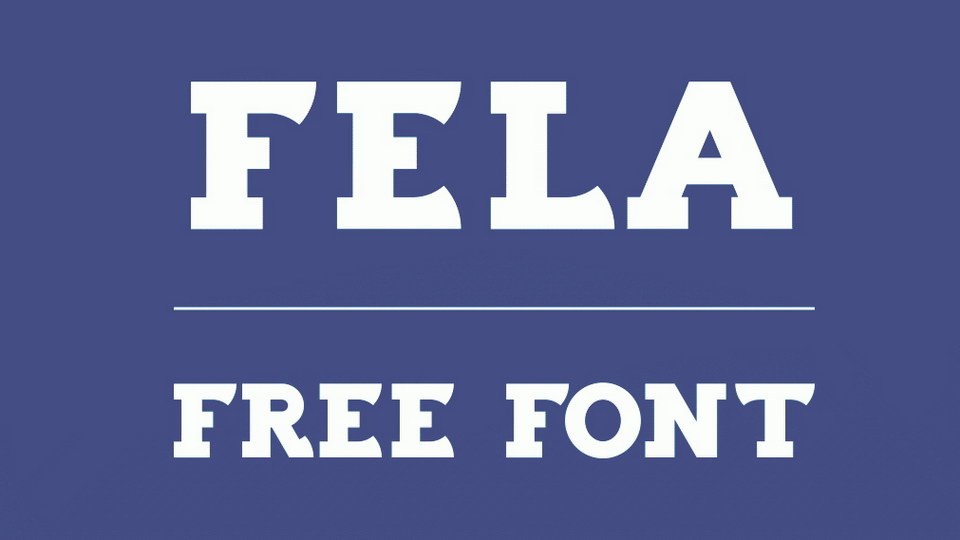
Fela Font
Fela is a bold display slab font. It contains all caps letters, numbers and symbols. Fela perfectly suits for logos, headlines, banners and posters.